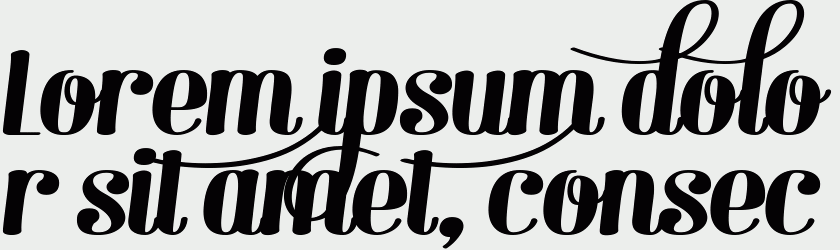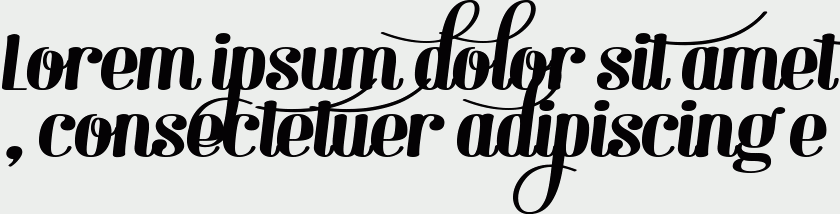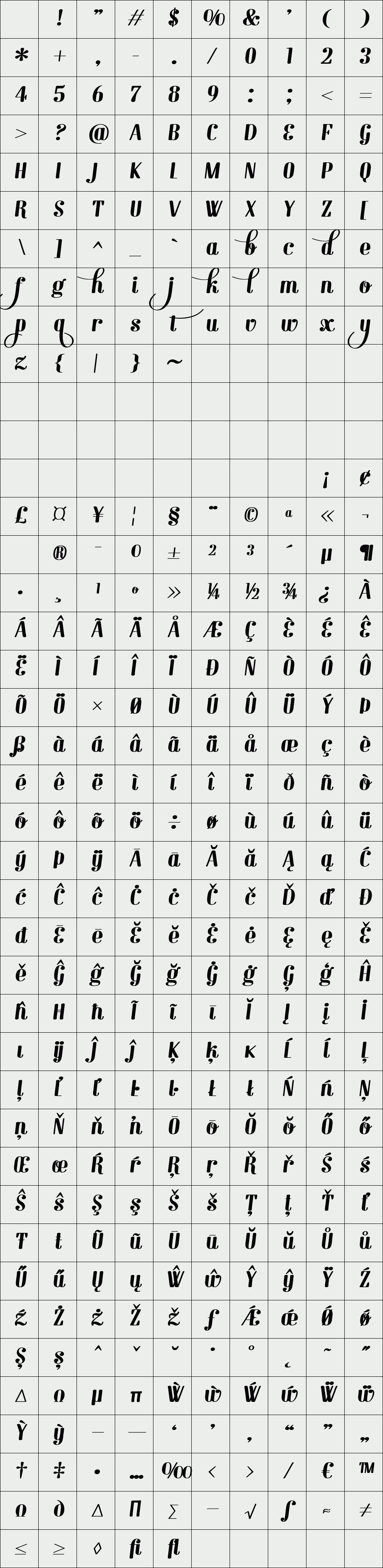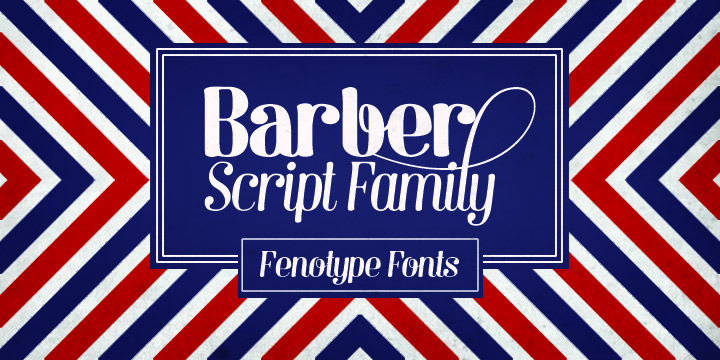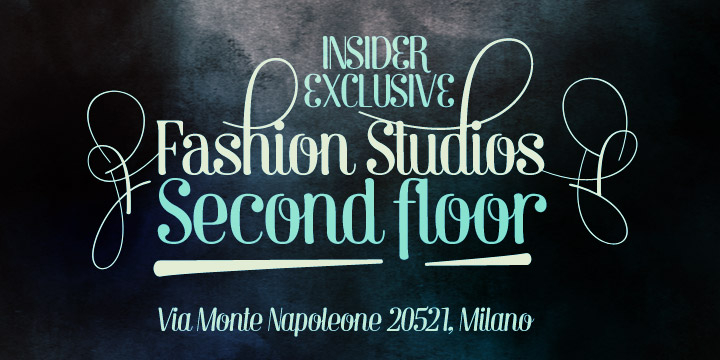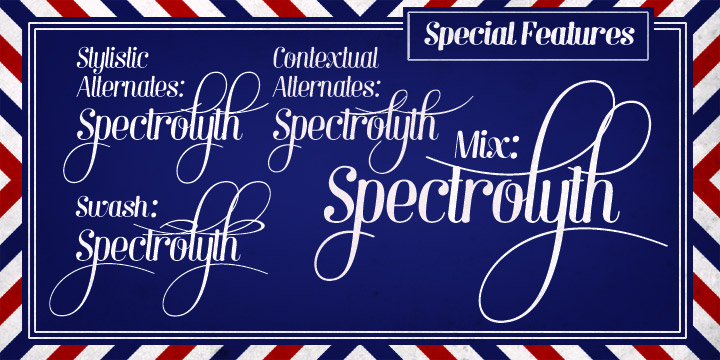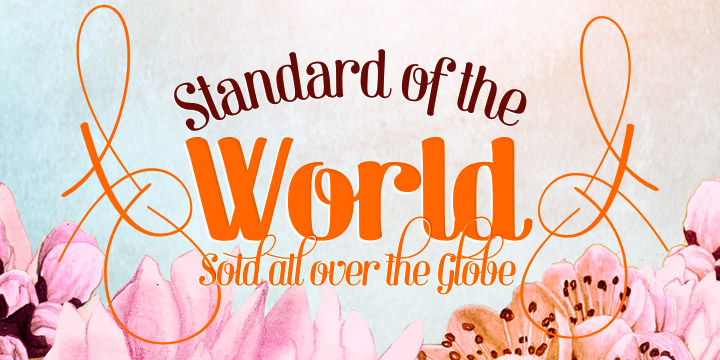
Barber
/ Barber 4
Barber is a versatile script font family with four weights. While Barber 1 is elegant and neat Barber 4 is cheerful, strong and full of warmth.
Barber works great by just typing words but for some extra kick try turning on Contextual Alternates, Swash or Stylistic Alternates in any Opentype savvy program. By opening Glyph palette you'll also find an useful selection of ornaments.